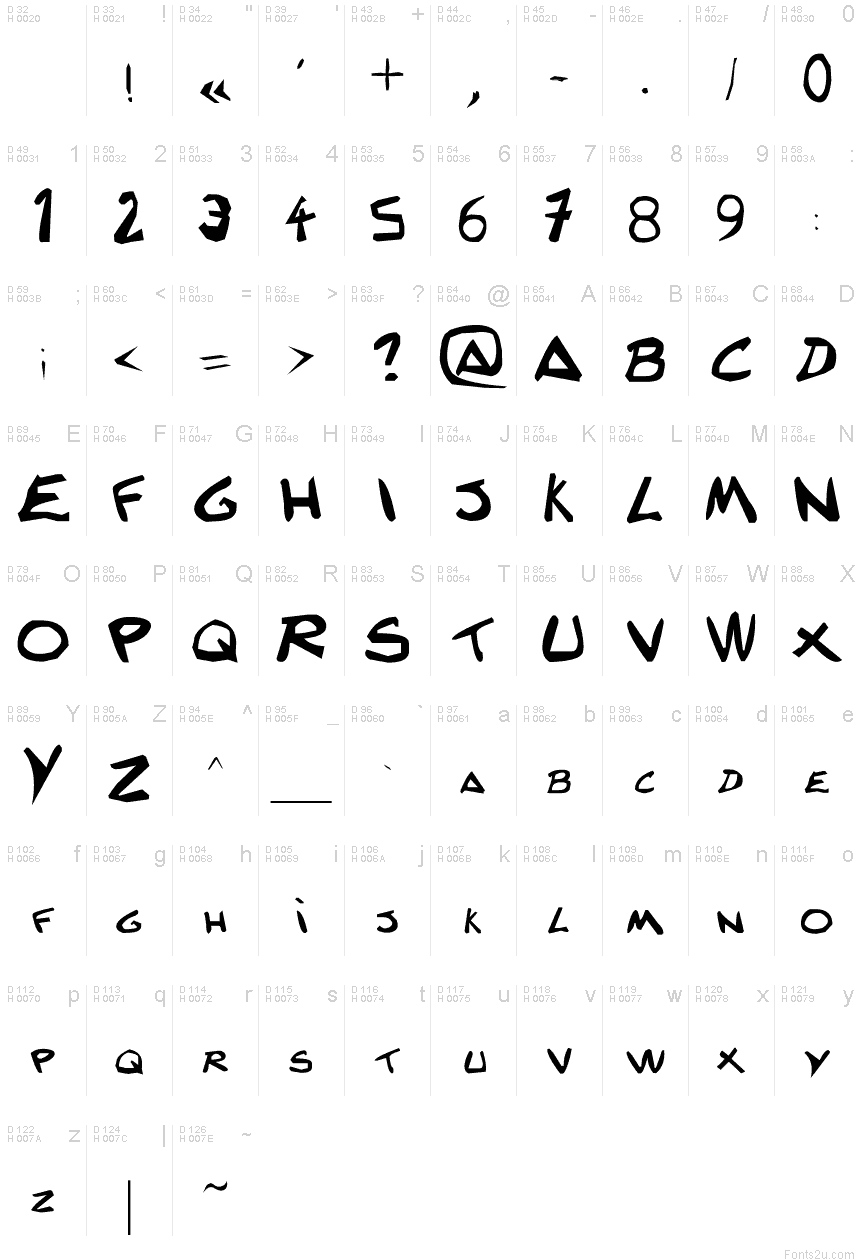
Texte d'écriture Lanfeust
Texte d'écriture Lanfeust, is a free distorted graffiti display font with the feel of hurried marker lettering slashed across a wall. The letters lean into sharp angles, broken joins, and thick black strokes that flare and taper unpredictably, giving the alphabet a restless, street-drawn energy rather than a neat comic or handwritten polish.
That makes it a natural fit for posters, album covers, zines, game title cards, and event flyers where a raw scrawl carries more mood than order. As a free font, it also works for short headlines, chapter openers, and logo sketches, especially when you want the caps to look quick, edgy, and a little unruly.